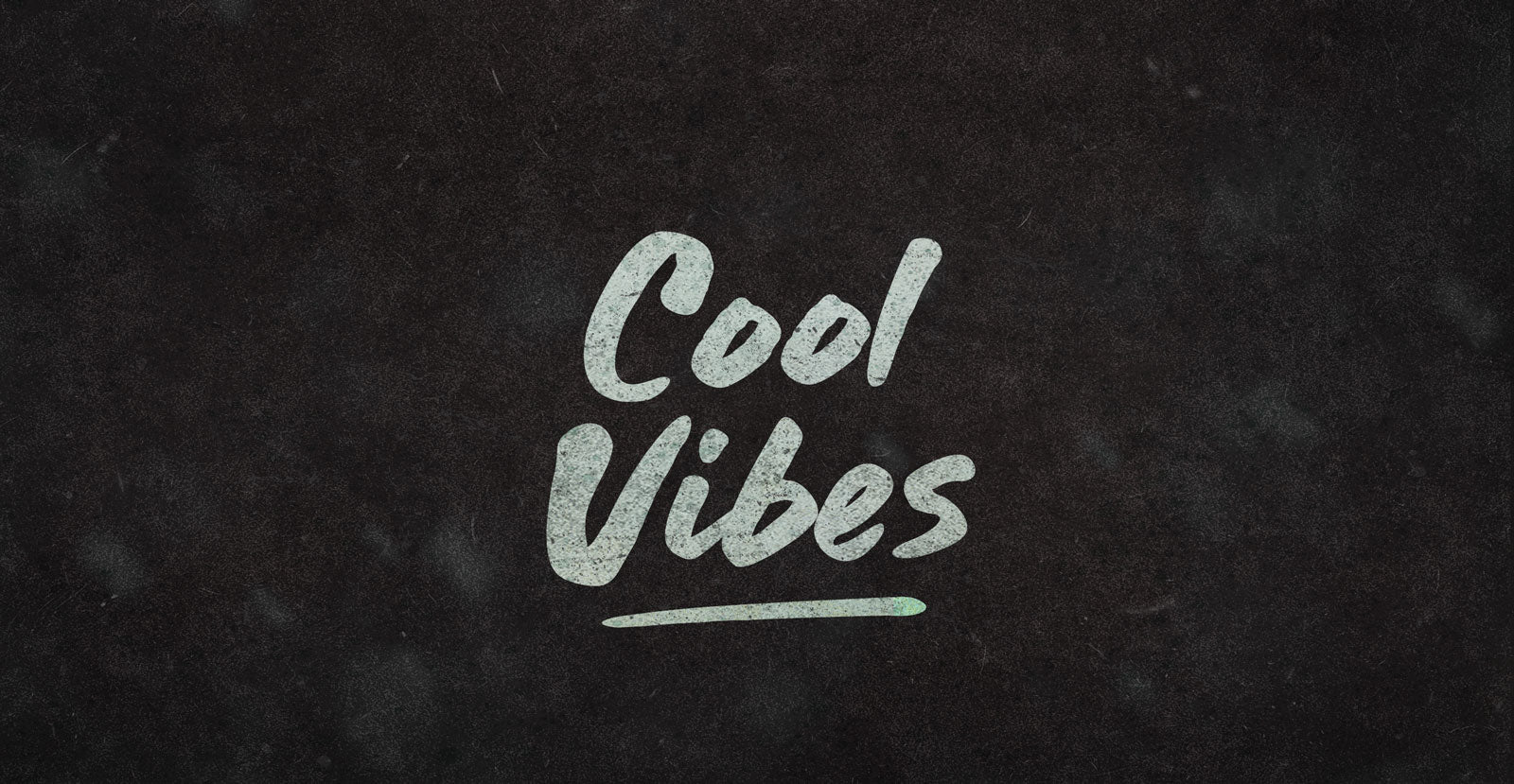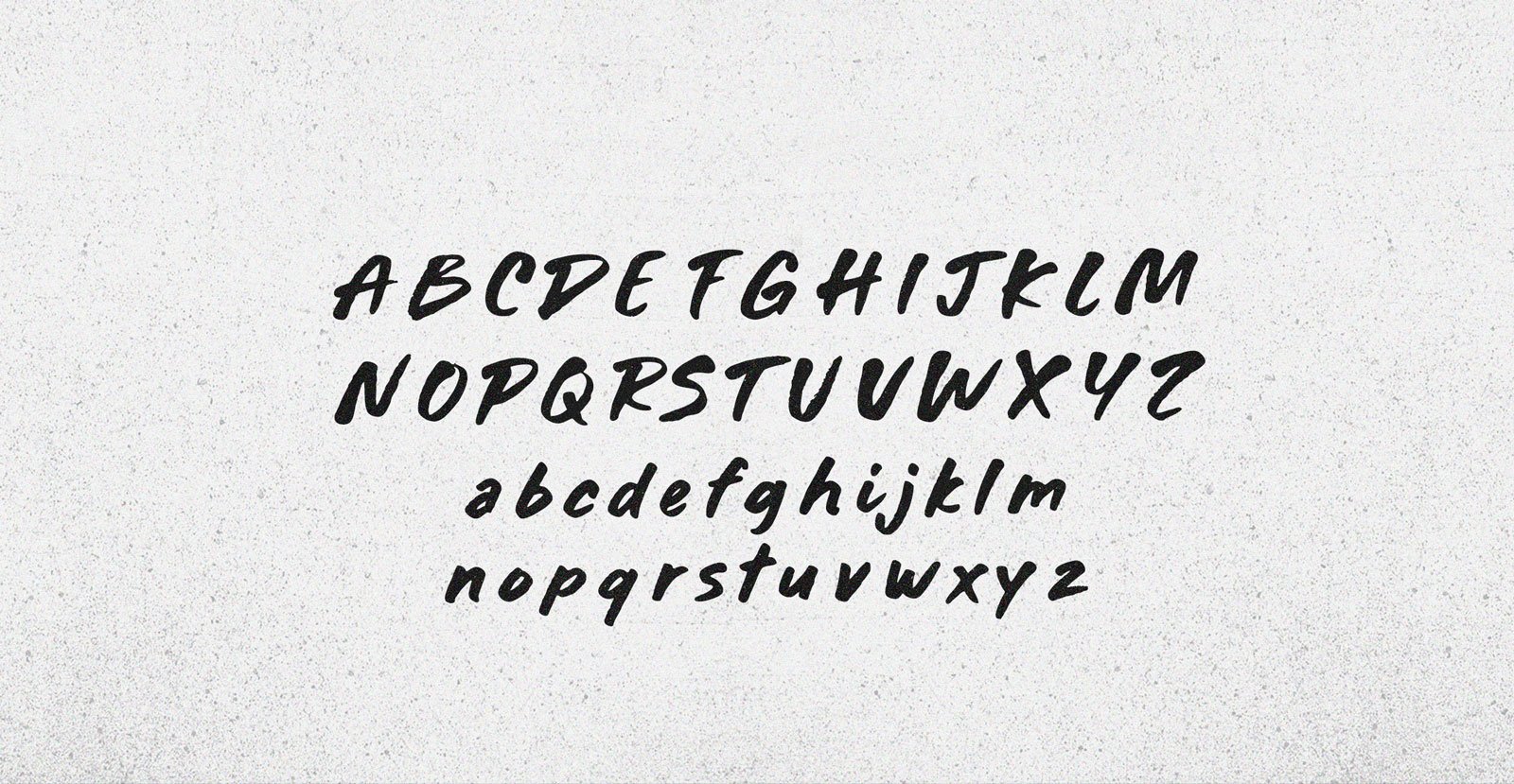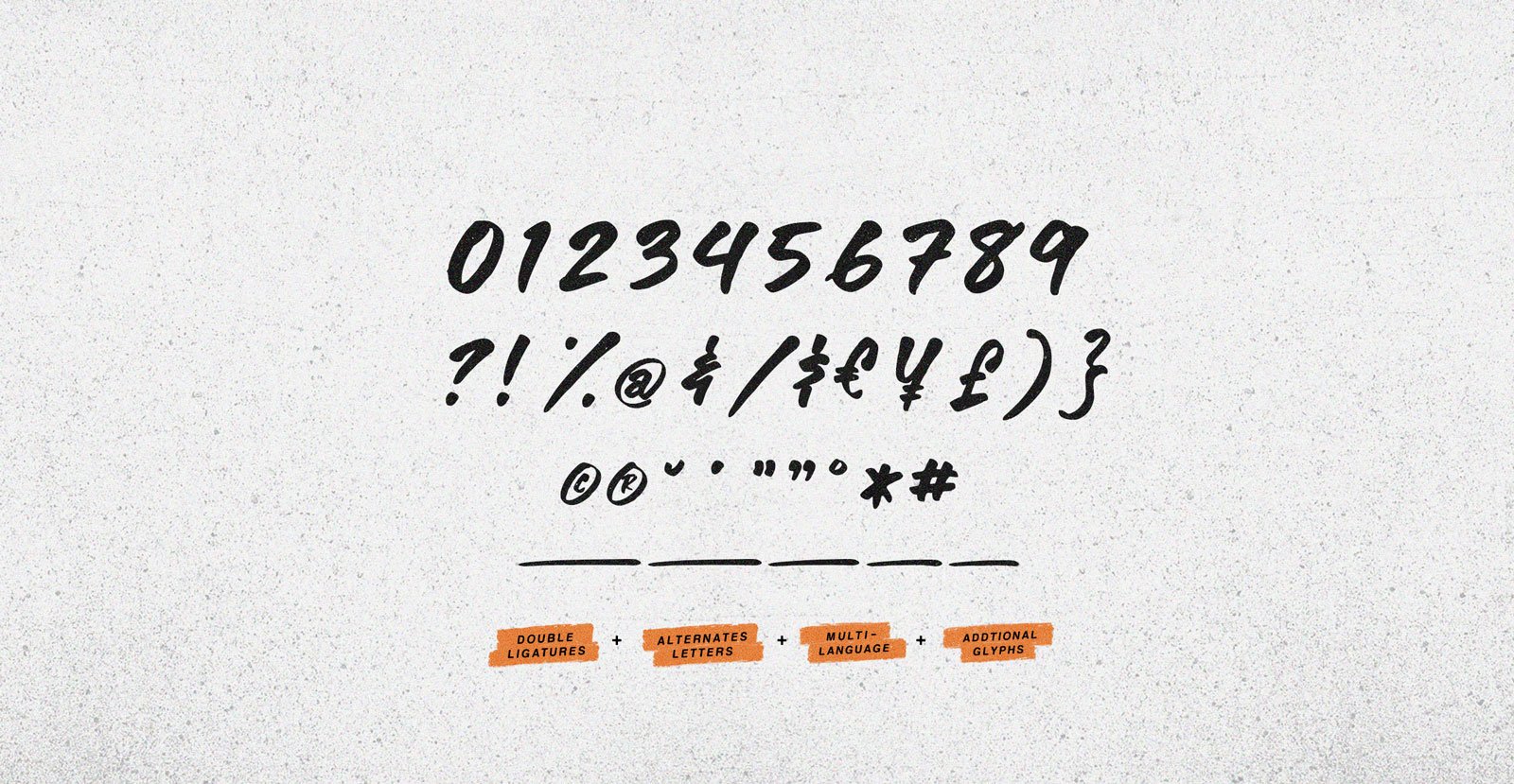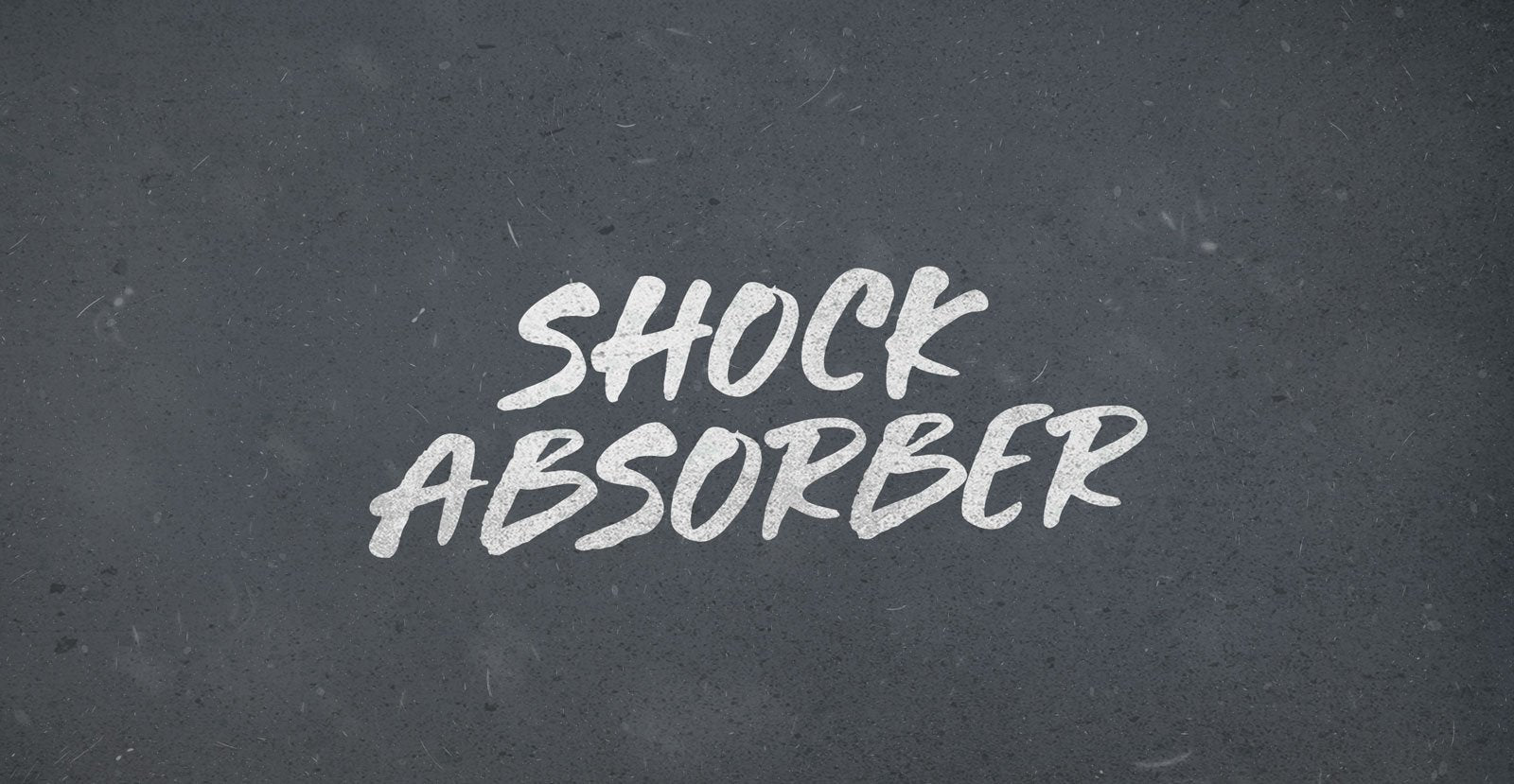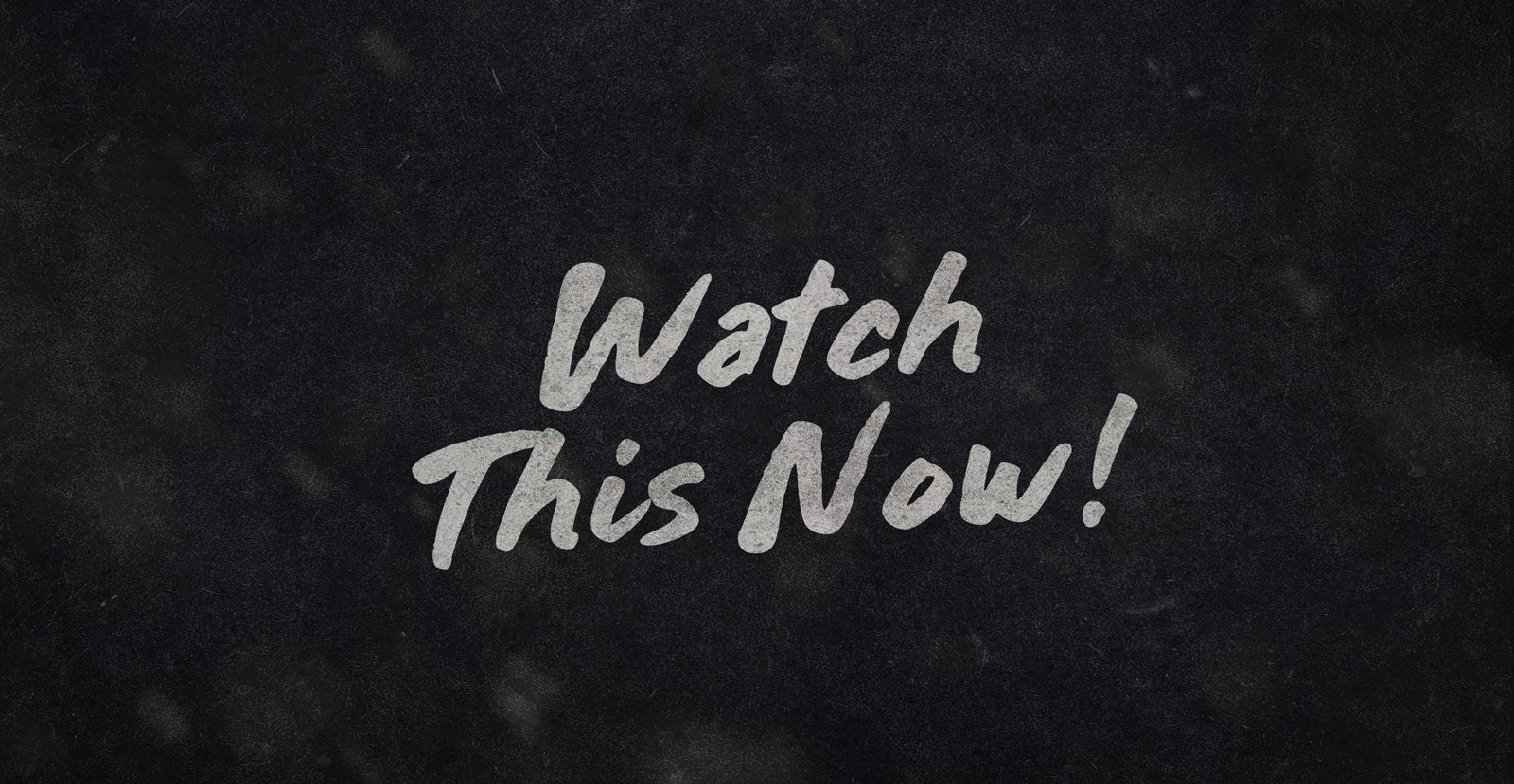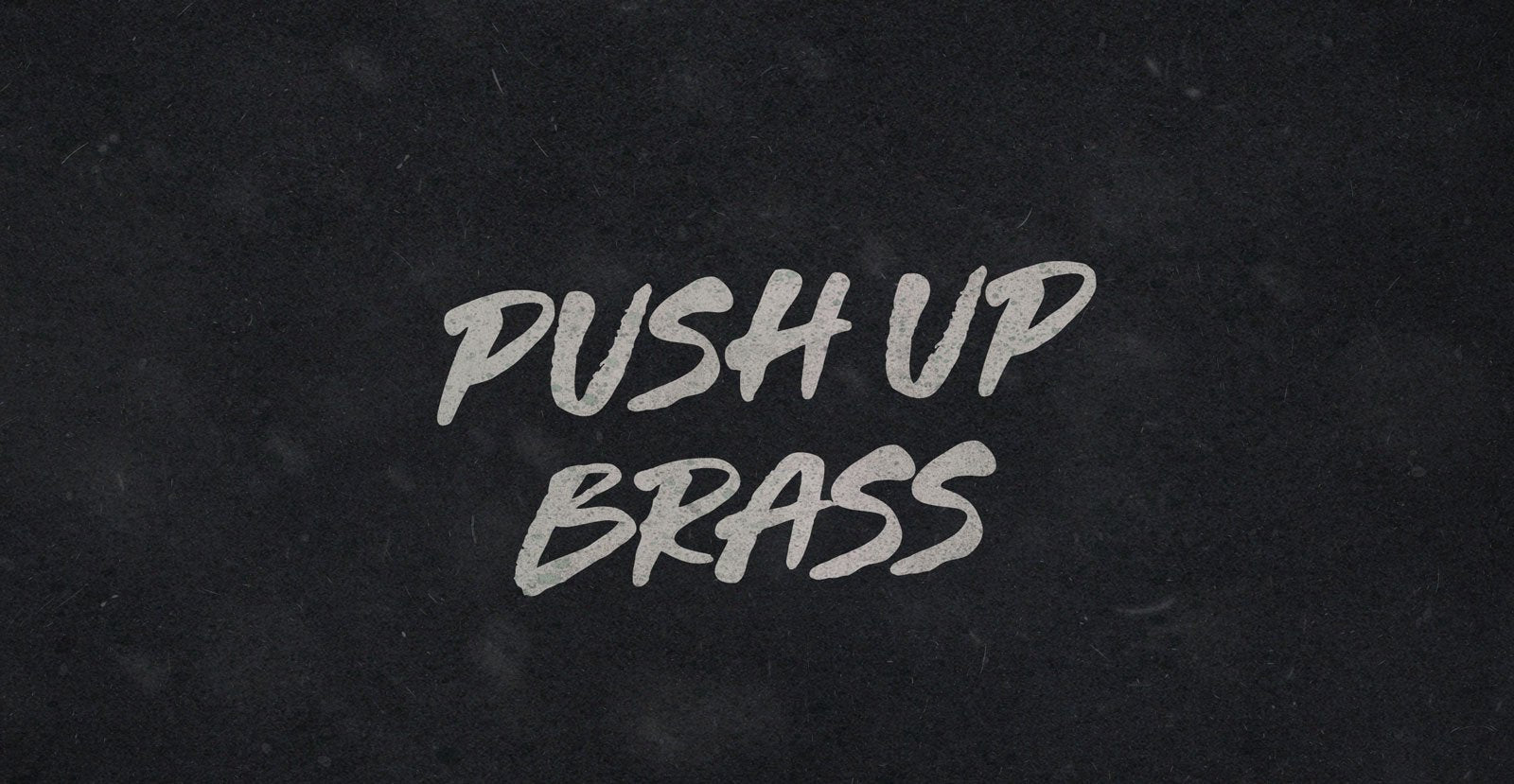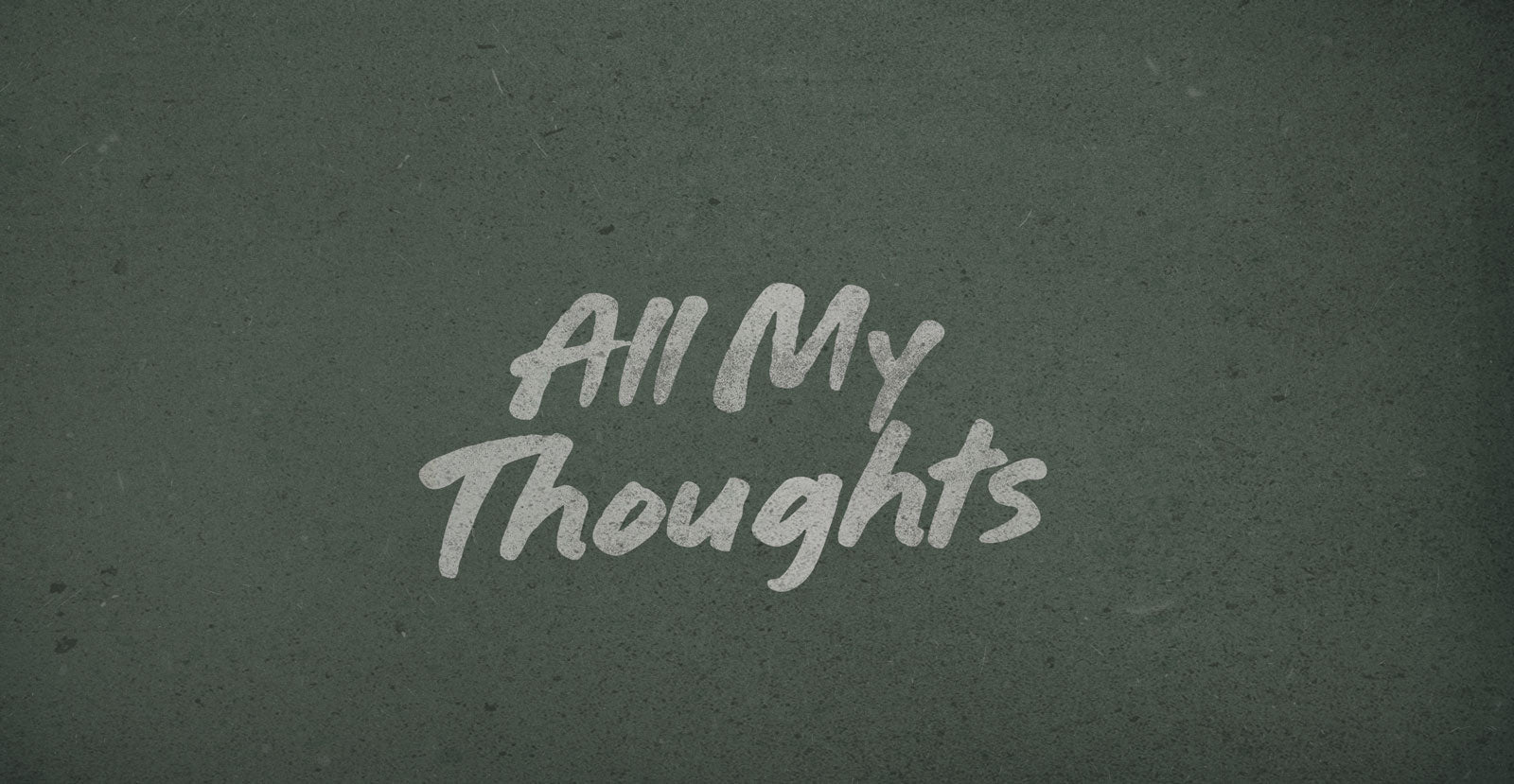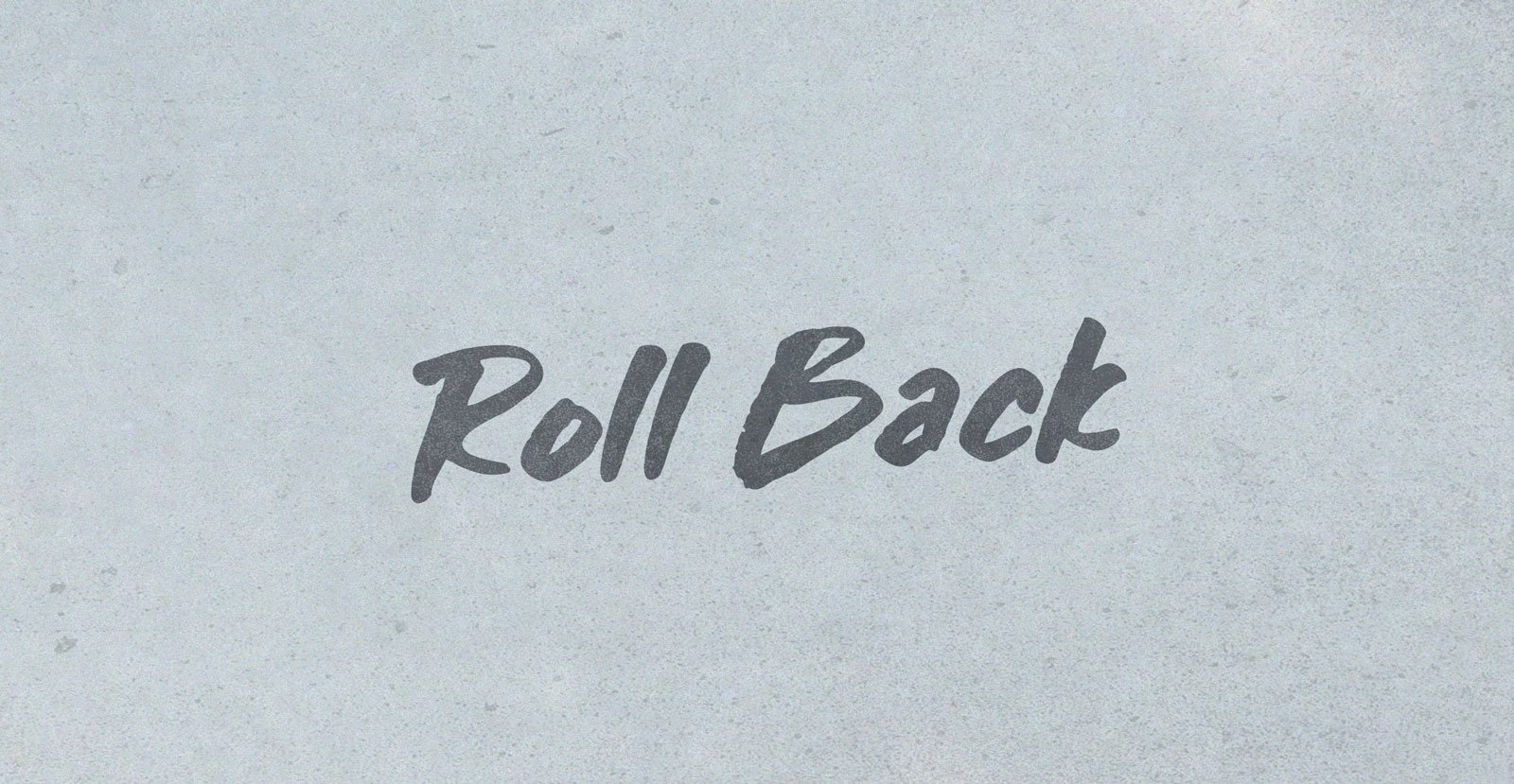
Cool Vibes
Hair up and shaking to the cold and vibrations. Heads makes beats nod heads; Cool Vibes rev the pilomotor reflex on some super-cilia, temperature-sensing sine-wave stuff, rippling spines up and down to the ground.